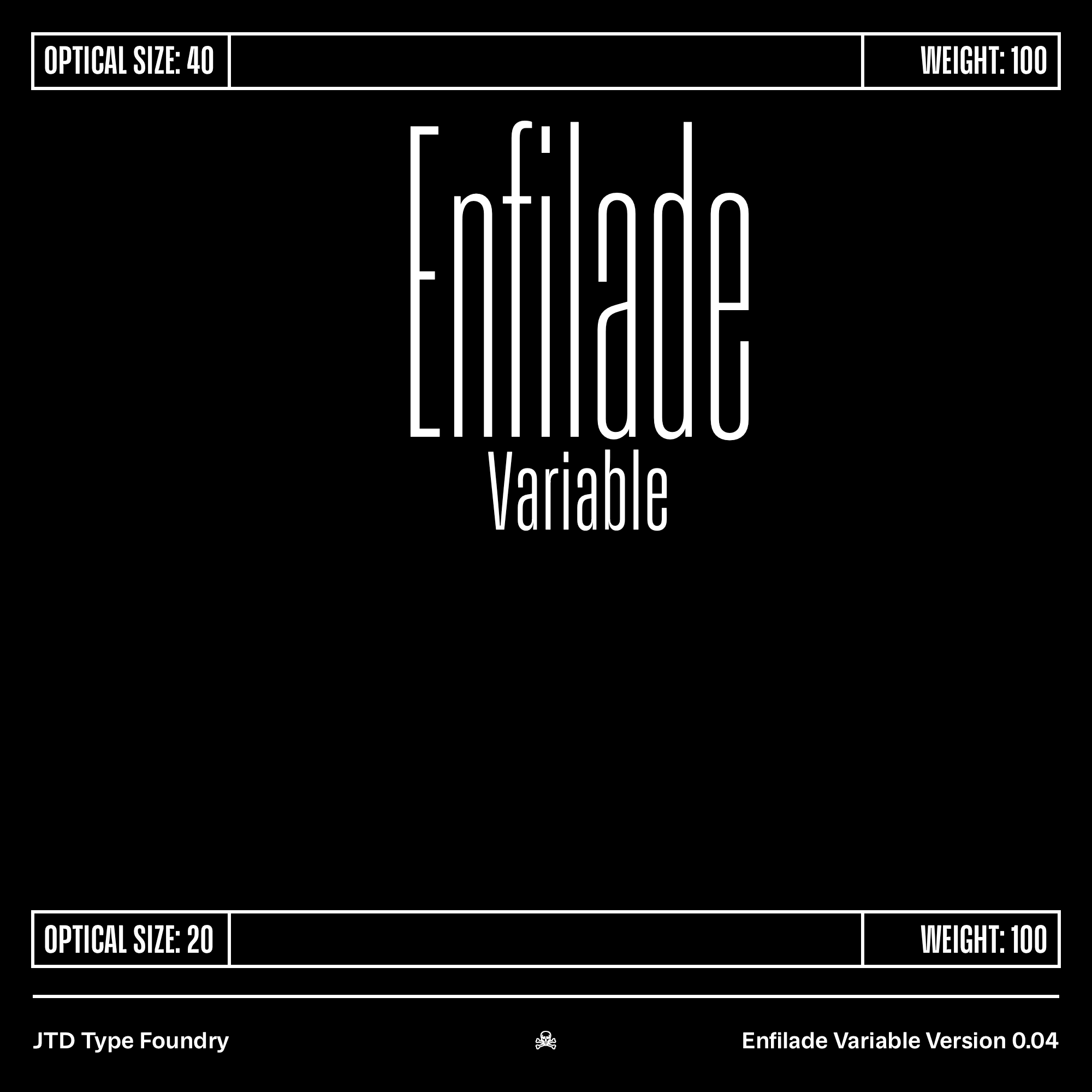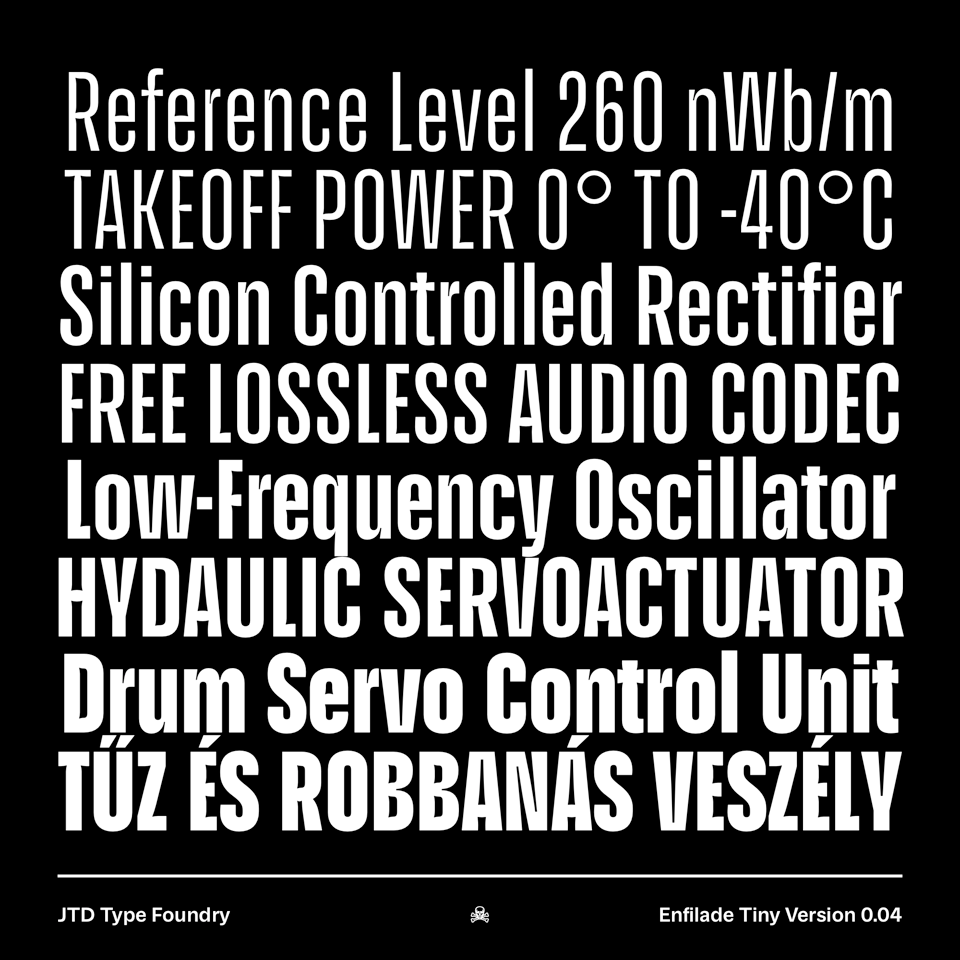
JTD Typewriter №3: Enfilade Variable and the end of social media
This issues masthead is set in Chapman and Enfilade Tiny.
If you’re joining us over here from Instagram, welcome! If you aren’t, we recently announced that we are no longer using most social media. If you want to know why, read on, otherwise, skip to the next section to see what’s new and what’s upcoming!
Deciding to step away wasn’t an easy choice but, after looking at the facts, we made the choice for the following reasons: Social media is a drain on “content producers.” It’s mentally exhausting and stressful to try and come up with “content.” This effort takes away from time and energy that can be better spent focusing on the core of our business: making type and helping our clients. To that end, we’re not animators, actors, or voiceover artists; we’re type designers.
I’ve never been convinced that the time spent doing any of that work for the likes of Facebook, Instagram, Twitter, or TikTok has truly made a difference in our business. I’m sure that their work in convincing all of us that it’s important has helped all of those companies. As time goes on, that effort seems less and less reciprocal.
NEWEST RELEASE: Enfilade Variable
Enfilade Variable as it runs through its variations.
Still over at FutureFonts, Enfilade now has 16 styles and a variable font version. The variable font doesn’t yet include the Tiny optical size, as it has so many ink traps and optical adjustments that prevent it from properly interpolating. Eventually, it’ll be included.
The previous version didn’t include a hairline weight (top of this image), of Enfilade Tiny.
BEHIND THE SCENES: What was once Sedlec
A few issues ago, we shared Rachel’s first release which was called Sedlec. It’s based on a Soviet-era copy of Futura and we’re still putting the finishing touches on it. While that’s going on, we’ve decided it has to be renamed; Storm Type’s work for the Sedlec Cathedral, while a custom font (and potentially not named Sedlec), is too close to the source for us to consider keeping the name. If you have any good ideas, let us know!
IN USE:
Late last year a new coffee shop opened in my neighborhood; it’s half coffee and half skateboard shop. Working there off and on over the past several months, I slowly rekindled my interest in skating. That meant I had to build up a board. During my research into parts (it had been 20 years since I last stepped on a board), I came across Thunder Trucks using Transducer all over their branding!
Transducer Extended used for Gilded, Hollow, and Team Edition.
Transducer Extended used for Size, Axle Height, 143, and 145. Transducer used for the Axle Lengths.
Transducer Condensed used for “More grind clearance.”
That coffee shop I mentioned above? They commissioned a little piece of lettering that’s going to go on some hats that will hopefully be in stock by Halloween.
A lettering project for a local coffee/skate shop.
They wanted something that looked like a ’50s horror movie, and had a curve to it. This is what we came up with.